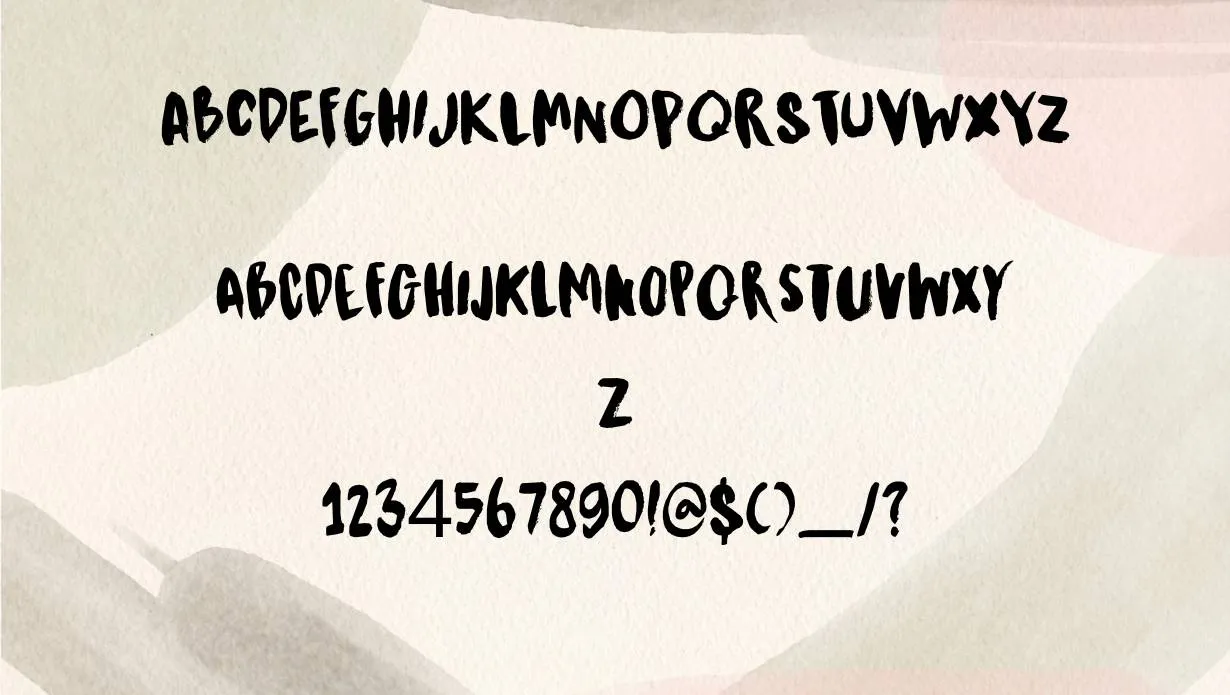
Kitsune Tail font is the mysterious friend that adds a touch of enchantment to your words. It’s like sprinkling magic on your text, making it perfect for fantasy book covers or special event posters.
The weight of Kitsune Tail is mystical, captivating attention without overwhelming the senses. Its width is gracefully balanced, creating an elegant flow in the lettering. This font turns your words into captivating elements, standing out with an air of intrigue and magic.